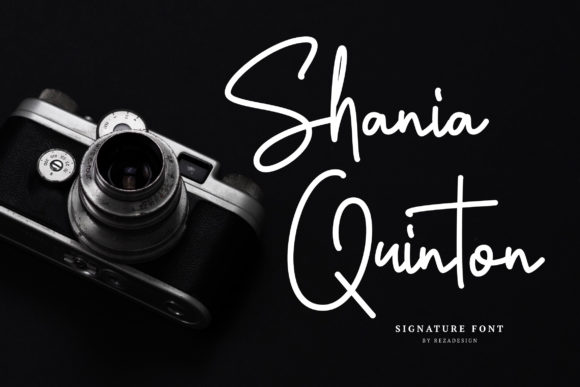
Embark on a typographic journey with Shania Quinton Font, the enchanting script font crafted by Grezline Studio. This exquisite font will captivate your audience, leaving an enduring impression. Let your creativity flourish as you explore the boundless possibilities of Shania Quinton.
With its graceful strokes and organic flow, Shania Quinton adds a touch of elegance to any design. Its versatility shines in logos, branding, typography designs, product packaging, invitations, quotes, t-shirt designs, labels, posters, and any other creative endeavor yearning for a genuine handwritten feel.
Shania Quinton's charm lies in its ability to transform ordinary words into captivating works of art. Its flowing lines and sweeping curves evoke a sense of movement and energy, drawing the reader's gaze and capturing their attention. Whether it's a heartfelt message, a striking logo, or an inspiring quote, Shania Quinton elevates your words to new heights.
Unleash your creativity and let Shania Quinton be your muse. Its versatility knows no bounds, allowing you to effortlessly express your unique style and vision. Its enchanting nature will captivate your audience, leaving them spellbound by the beauty of your creations.